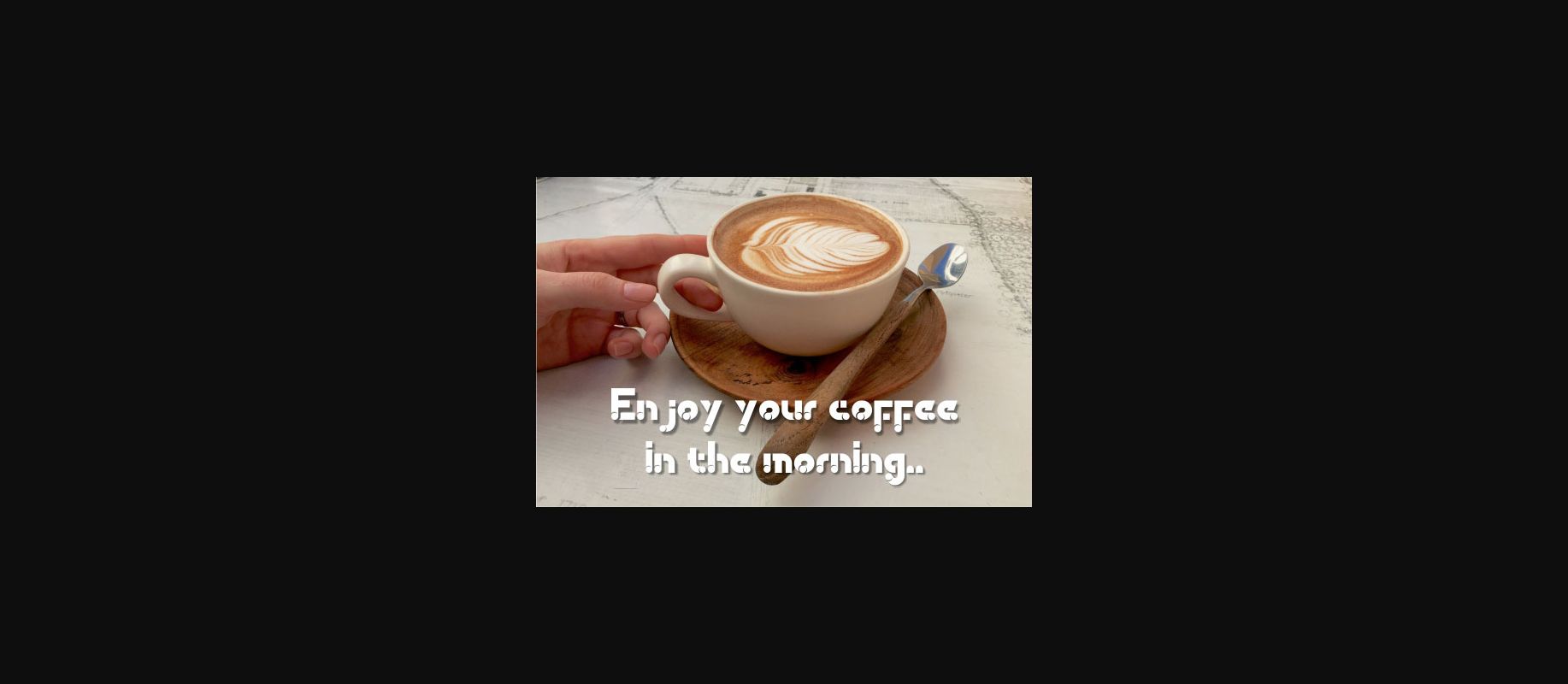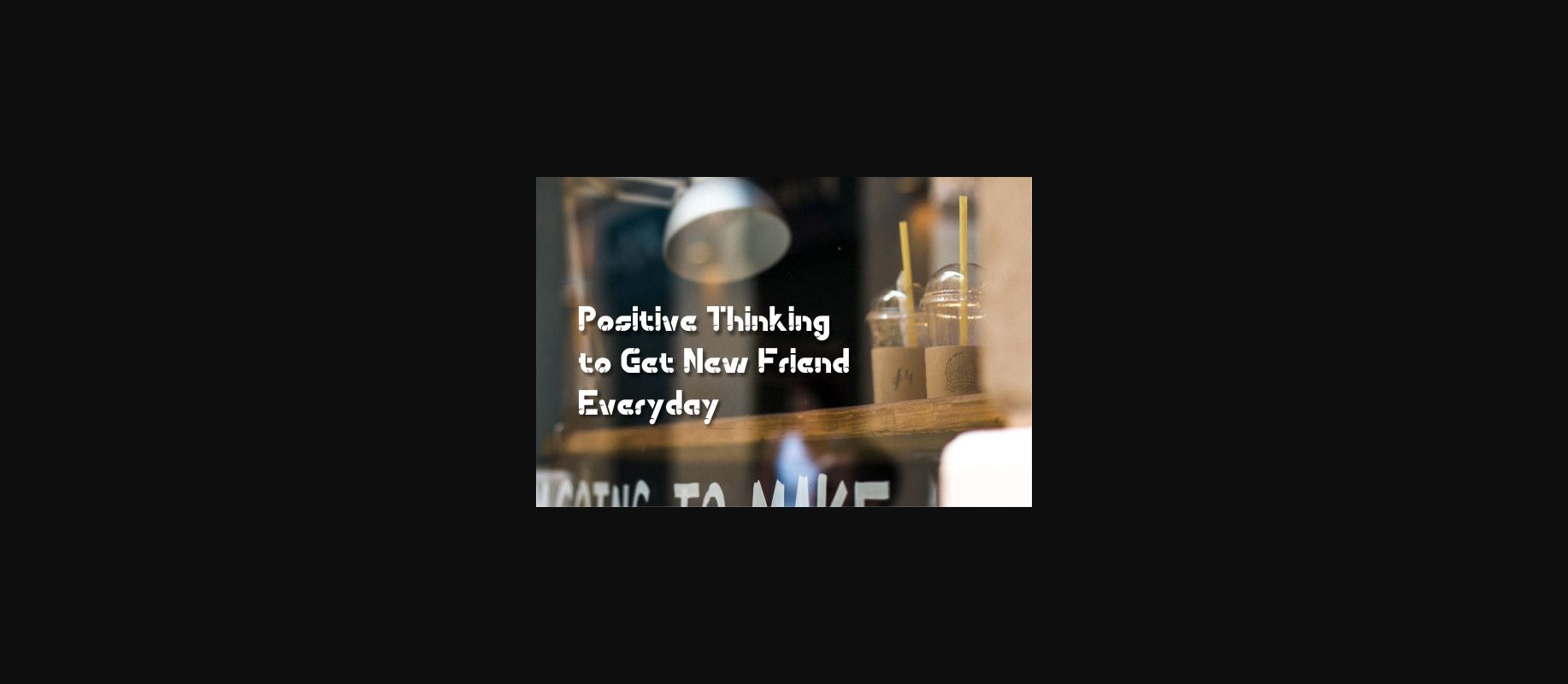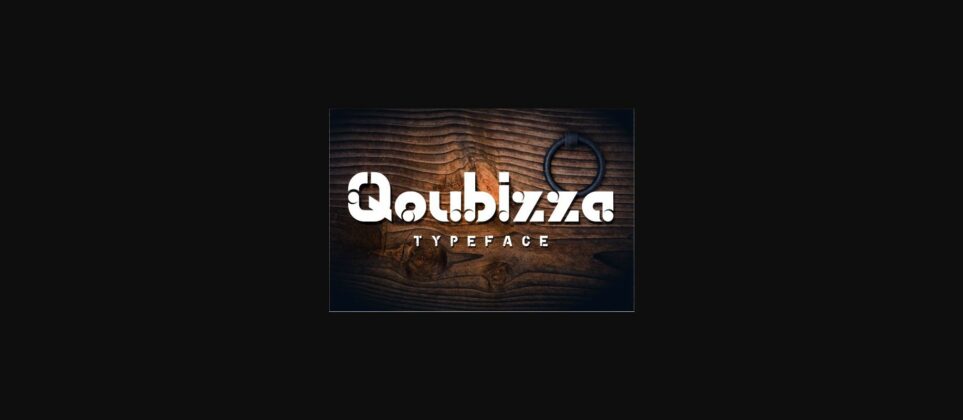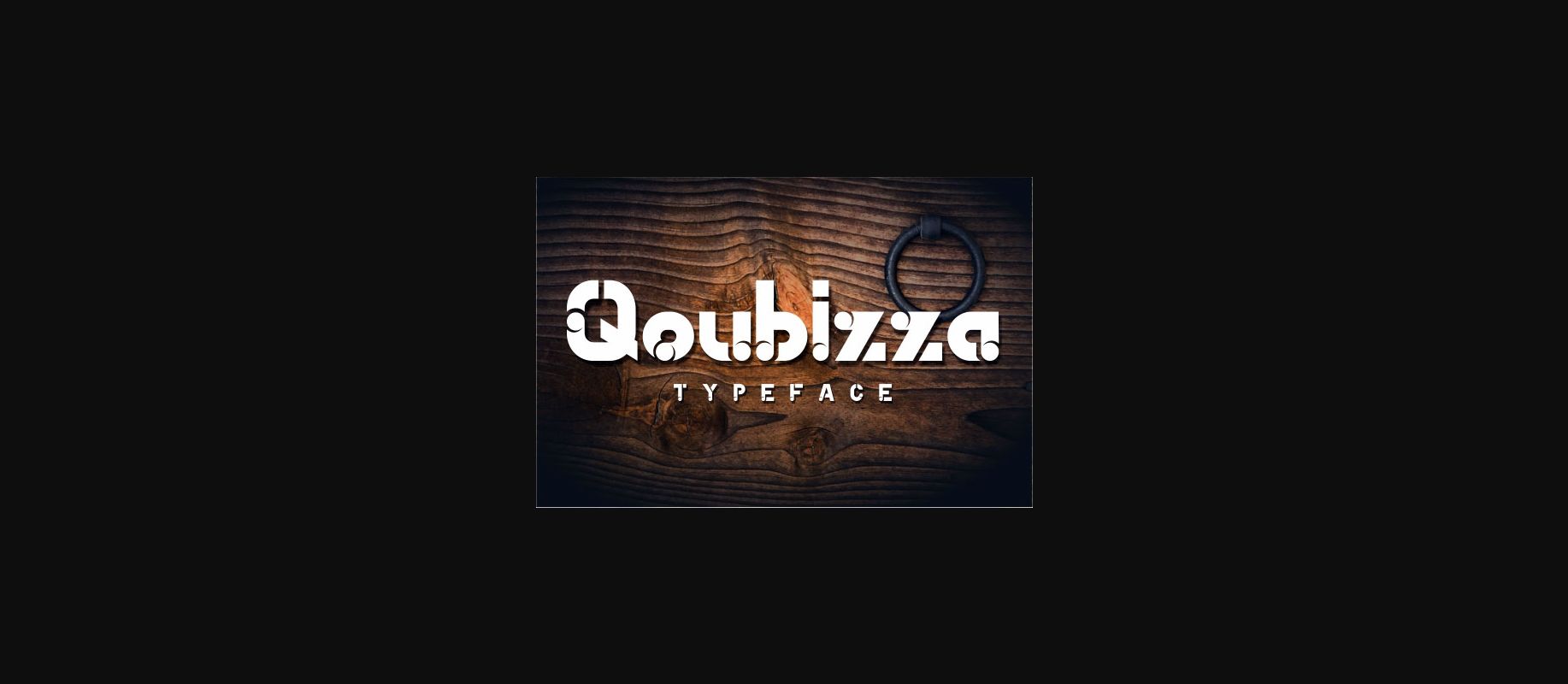
About Qoubizza Font
Qoubizza is a decorative and bold font, perfect for strong and tough creative projects. This font reads well, all the while retaining a major sense of decorum and style.